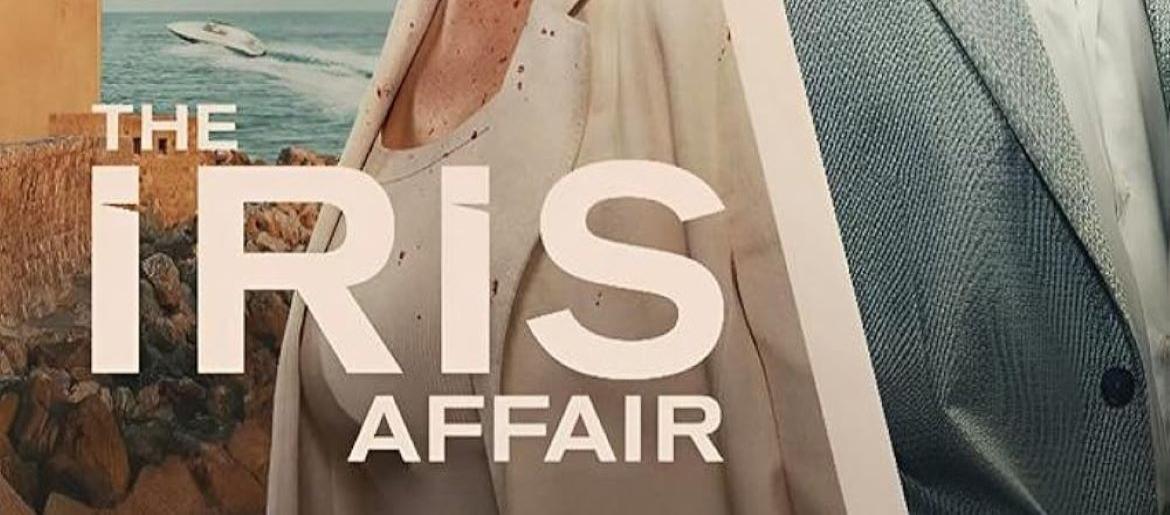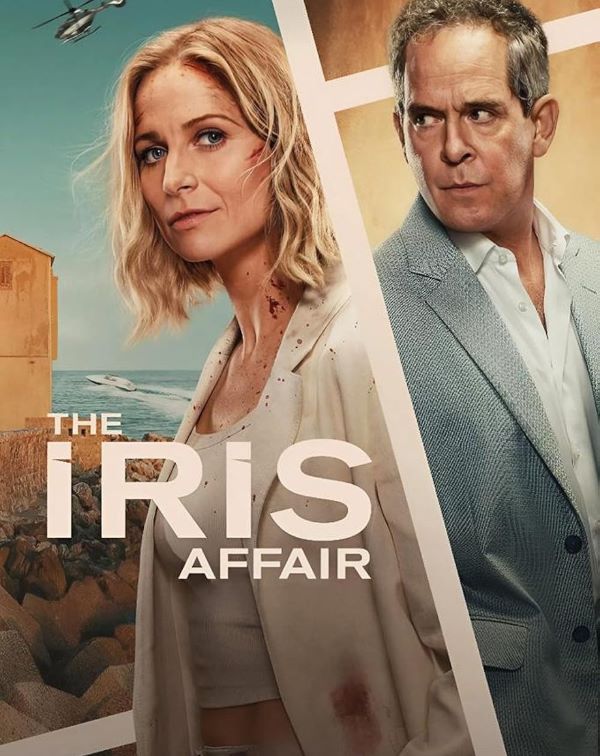
The Iris Affair Font
What is The Font Of The Iris Affair?
The The Iris Affair font used in the TV series title is primarily Standard CT Extended Medium, except for the letter “I,” which features a distinct variation that adds visual contrast and uniqueness to the logo. This typeface gives the title a sleek, cinematic quality — elegant yet slightly mysterious — perfectly fitting the tone of the series. However, we’ve found a similar free font that closely captures the same refined and modern aesthetic.
About The Iris Affair
The Iris Affair is a 2025 British thriller series created by Neil Cross and starring Niamh Algar and Tom Hollander. The story follows Iris Nixon, a brilliant codebreaker who deciphers an encrypted message tied to a powerful tech magnate. When her discovery exposes a dangerous secret, Iris disappears, sparking an international chase filled with intrigue and suspense. Set against the stunning backdrops of Florence and Sardinia, the series blends mystery, technology, and human drama into a stylish, high-stakes narrative.